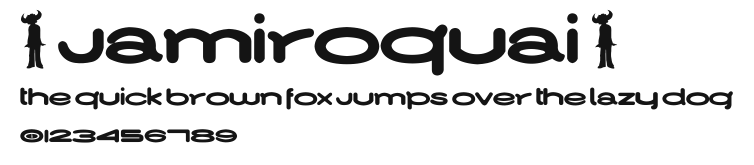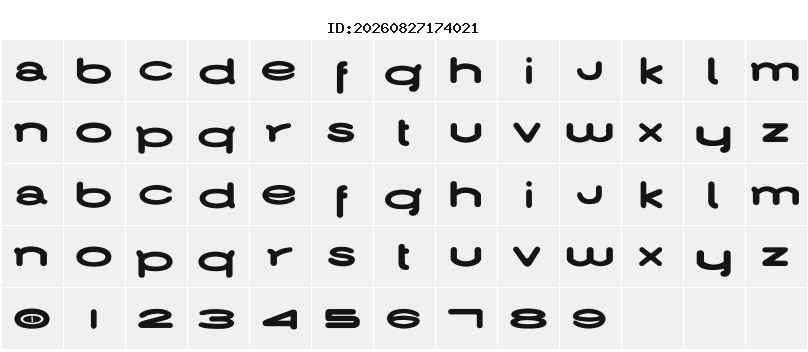
! Jamiroquai ! Preview
• Font Name: ! Jamiroquai !
• Font ID: ! Jamiroquai !
• Full Font Name: ! Jamiroquai !
• PostScript Name: ! Jamiroquai !
• Character Count: 256
• Designer: High-Logic - Erwin Denissen 1999
• Manufacturer: High-Logic
• Description: Template
About ! Jamiroquai !.ttf
! Jamiroquai !.ttf is a modern, elegant sans-serif font designed for ultimate readability and visual harmony. Perfect for branding, headlines, web design, and print materials.